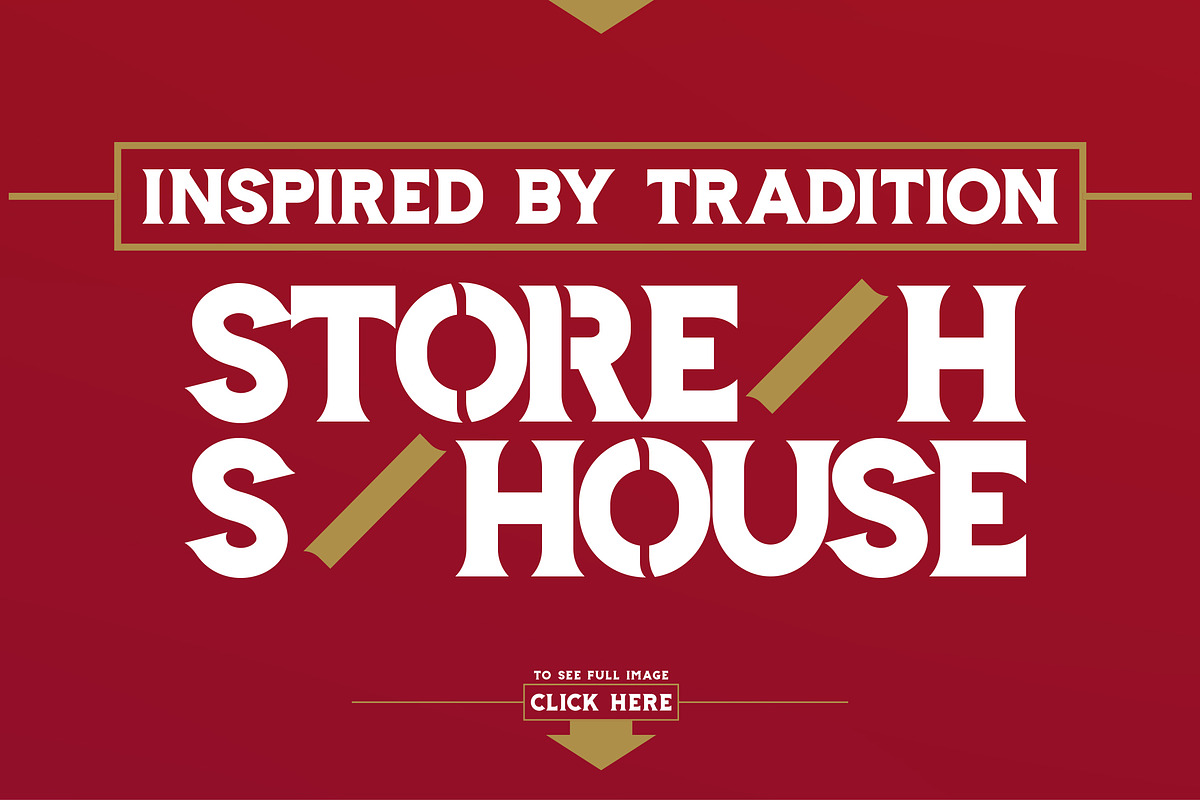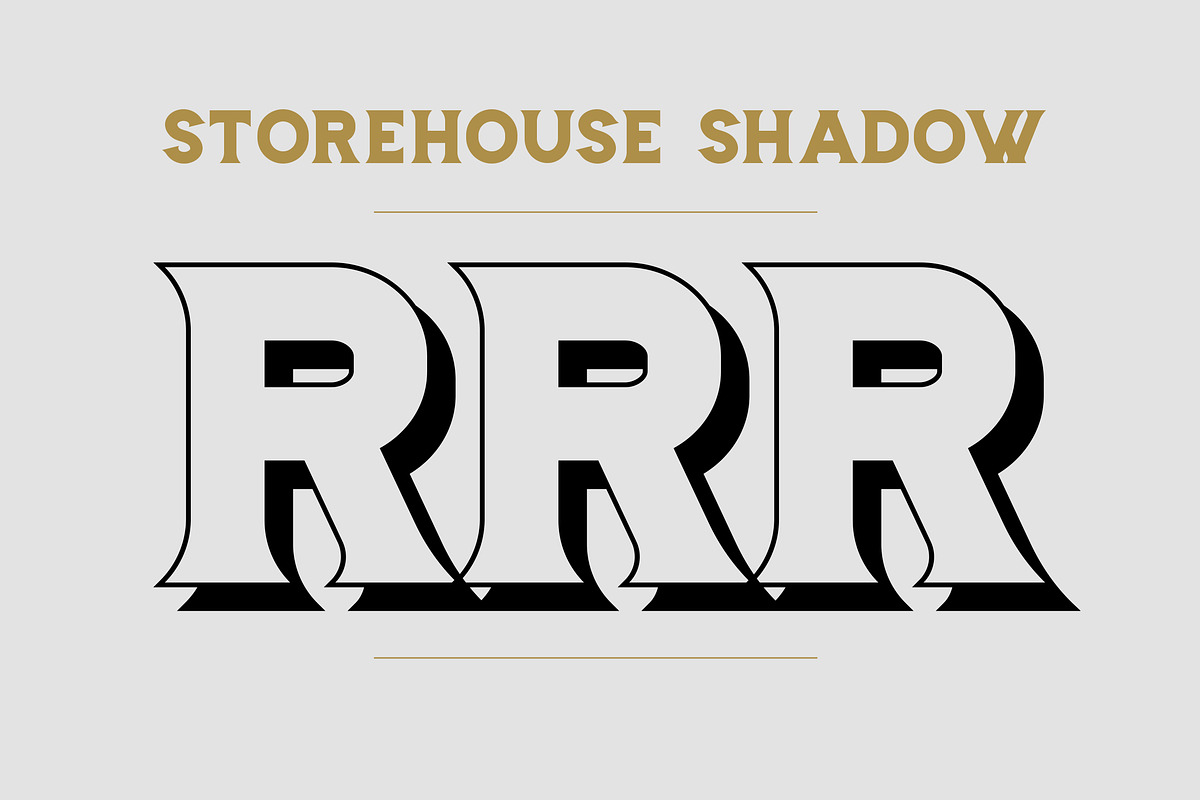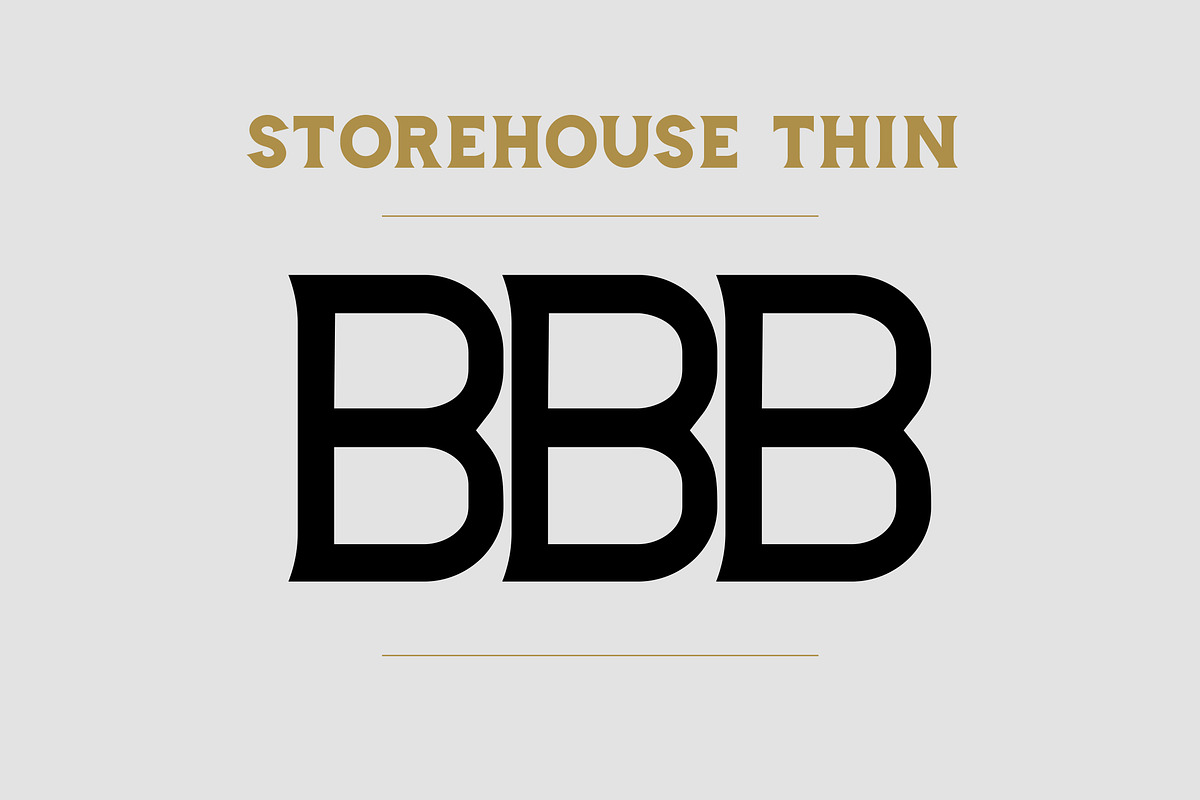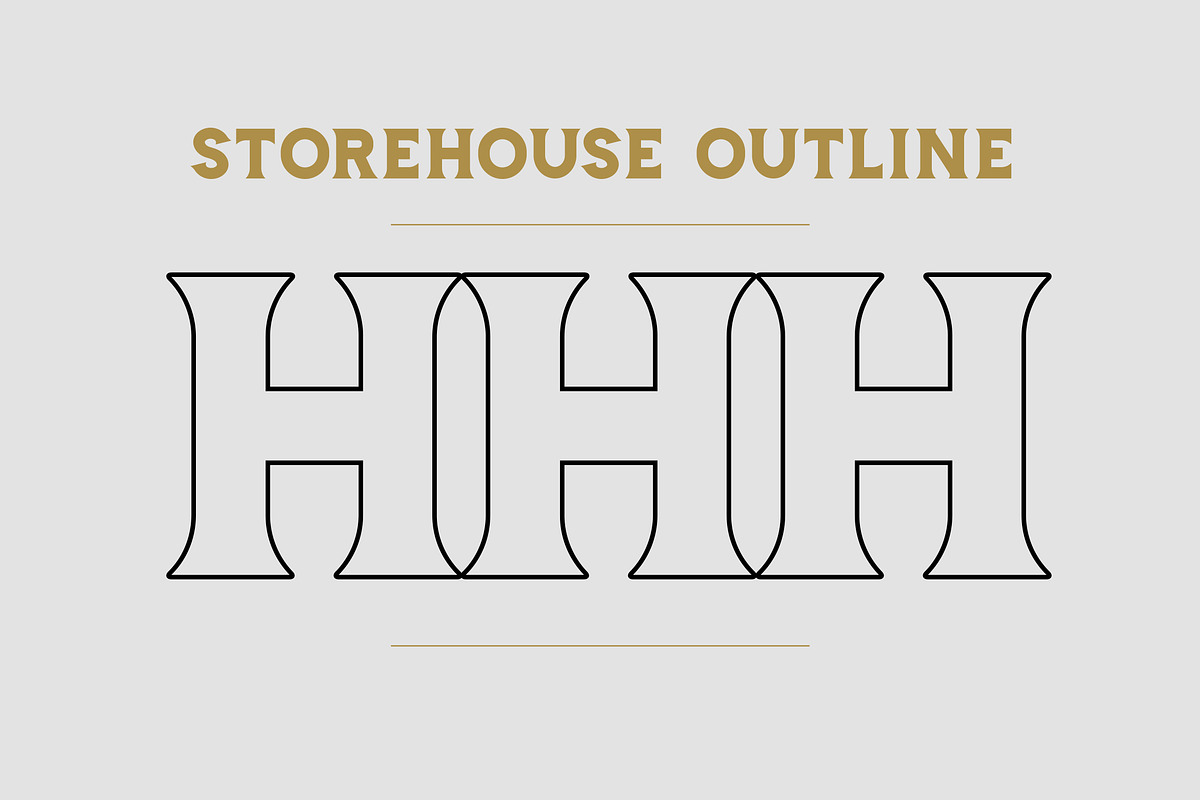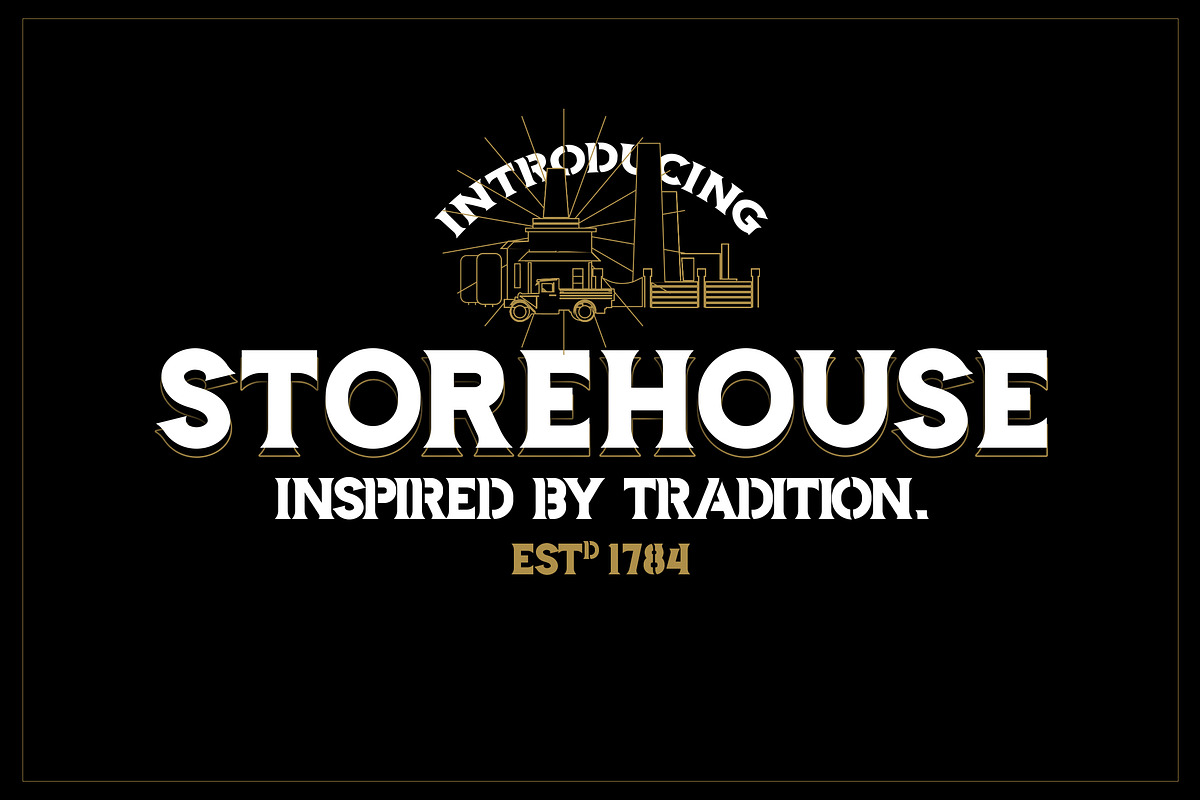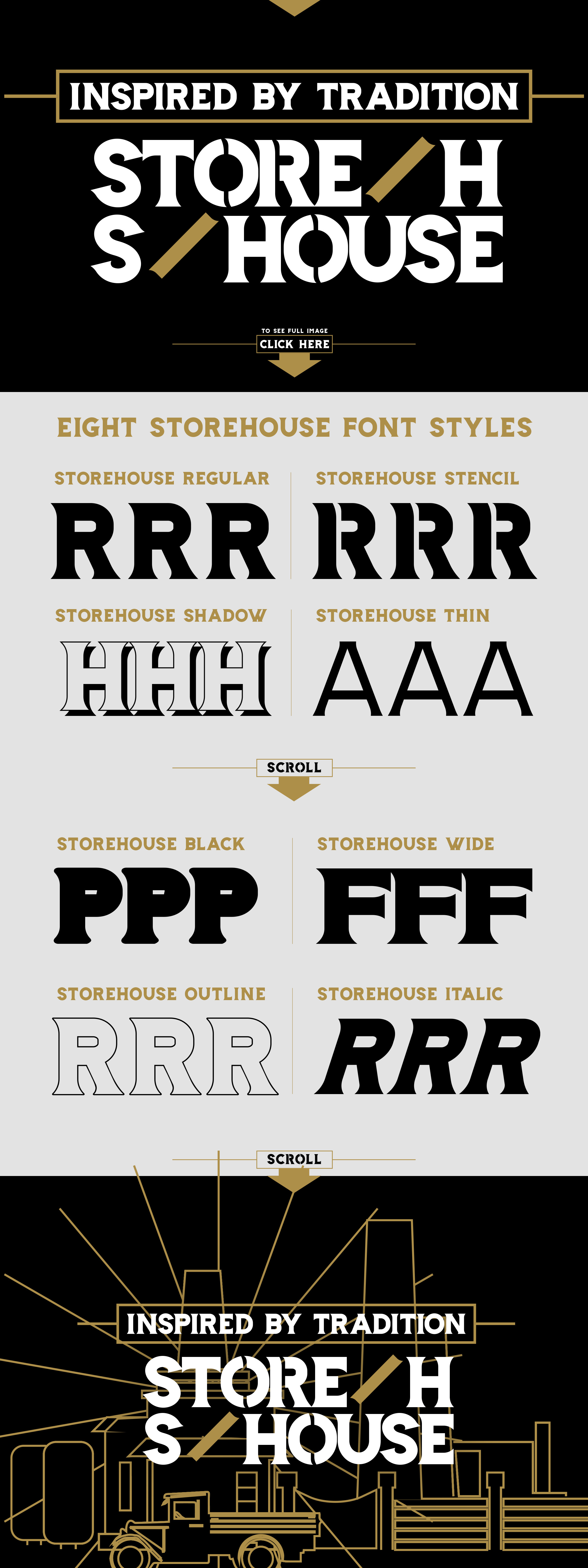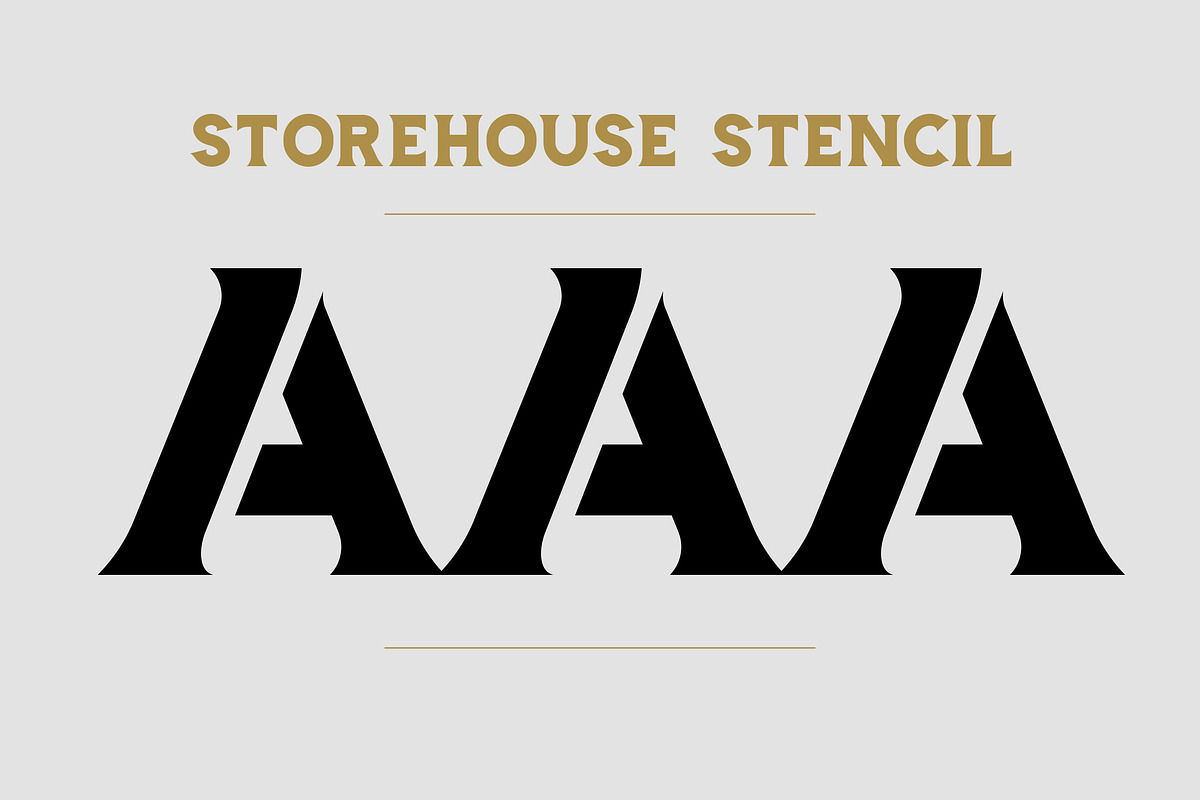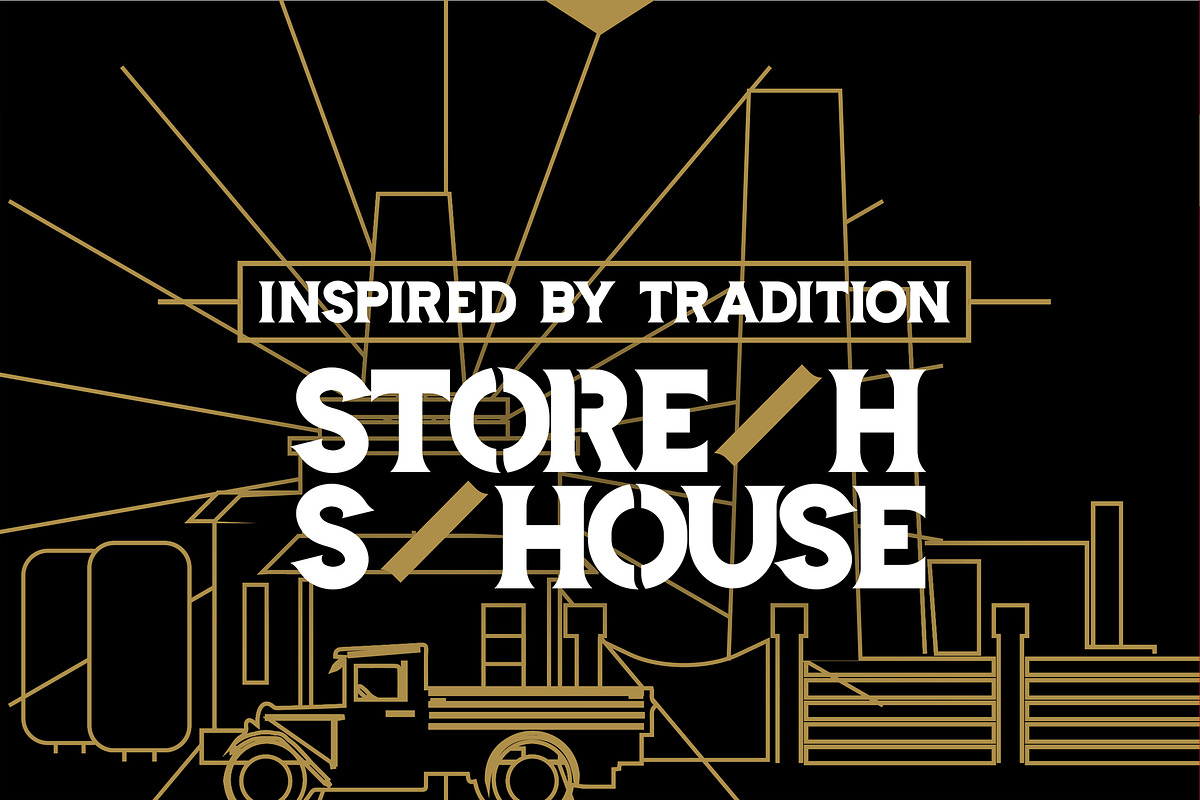
Storehouse Font + Vector shapes
Storehouse Font is an old fashioned typeface with a modern touch. Inspired by tradition, hardworking brewers and 1800s it come up with 10 strong, confident and powerful styles, included: Regular, Italic, Thin, Black, Outline, Shadow, Used, Wide, Soft and Stencil.
With Storehouse font you get 10 vector shapes that match with a font.
The font looks great when put on signs, shirts or labels of the bottles. Also, it works perfect as font for a branding and commercial uses.
- Storehouse Regular - OpenType font file - Regular old fashioned typeface with a modern touch. Full set of uppercase letters, international support, punctuation, and a wide variety of extra characters.
- Storehouse Thin - OpenType font file - Thin version. Full set of uppercase letters, international support, punctuation, and a wide variety of extra characters.
- Storehouse Wide - OpenType font file – Wide version, big spaces. Full set of uppercase letters, international support, punctuation, and a wide variety of extra characters.
- Storehouse Black - OpenType font file - Extra, extra bold version. Full set of uppercase letters, international support, punctuation, and a wide variety of extra characters.
- Storehouse Outline - OpenType font file – Outline version of regular version, amazing in matching with regular version as a back shadow. full set of uppercase letters, international support, punctuation, and a wide variety of extra characters.
- Storehouse Shadow - OpenType font file – Old fashioned shadow of regular version. Full set of uppercase letters, international support, punctuation, and a wide variety of extra characters.
- Storehouse Italic - OpenType font file – Regular version with smooth edges. Full set of uppercase letters, international support, punctuation, and a wide variety of extra characters.
- Storehouse Soft - OpenType font file - full set of uppercase letters, international support, punctuation, and a wide variety of extra characters.
- Storehouse Stencil - OpenType font file – Stencil font with amazing old fashioned modern touch. Full set of uppercase letters, international support, punctuation, and a wide variety of extra characters.
- Storehouse Used- OpenType font file – Softer edges, smooth lines. Full set of uppercase letters, international support, punctuation, and a wide variety of extra characters.